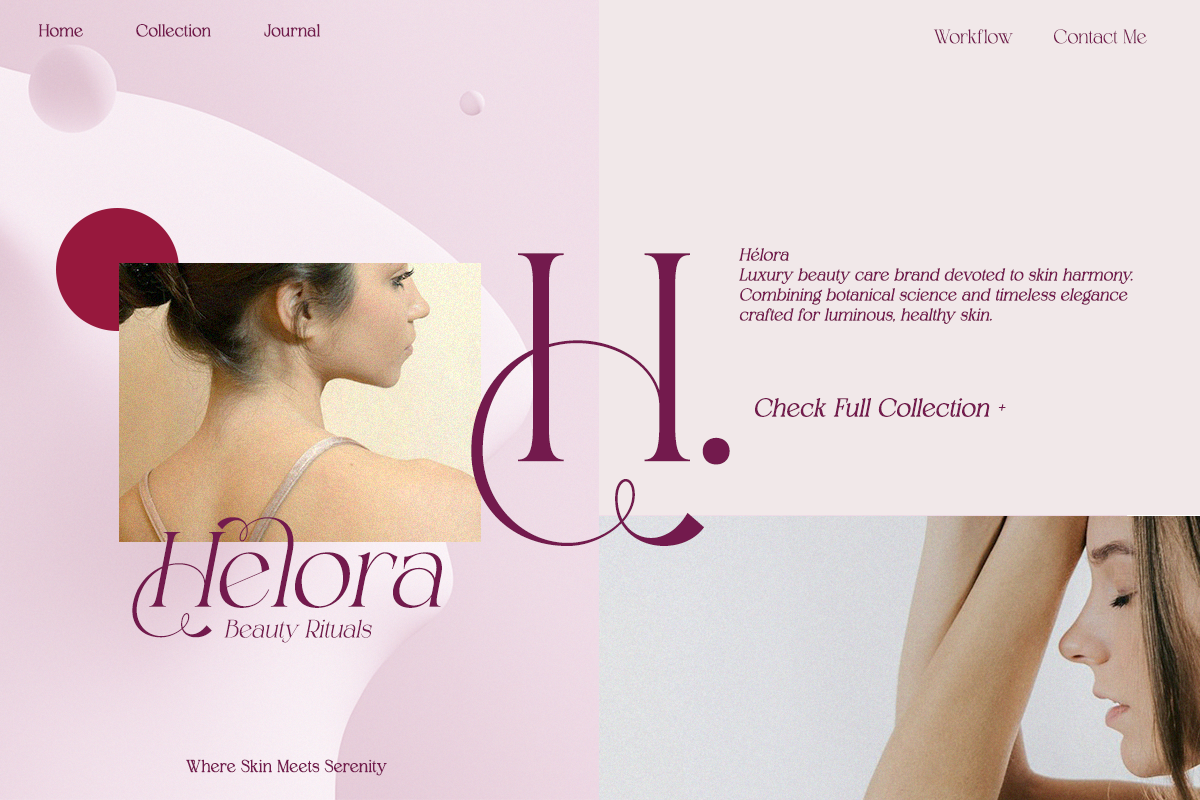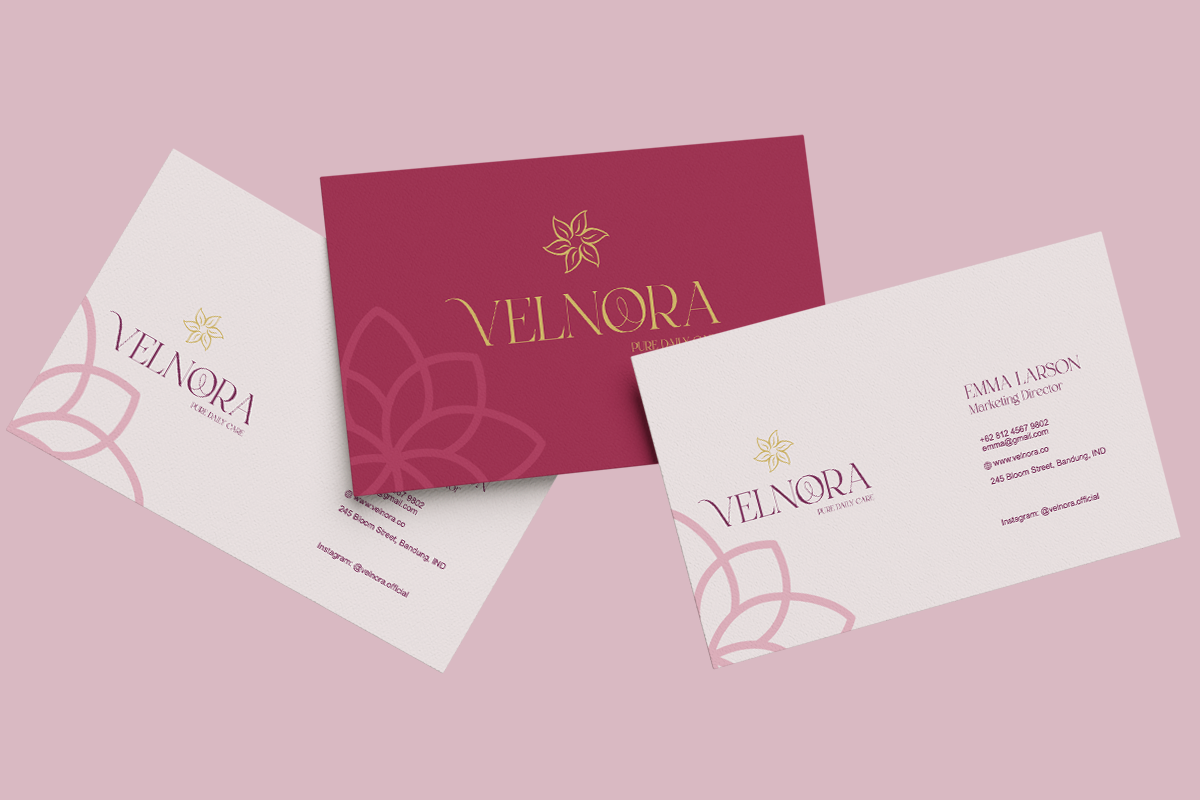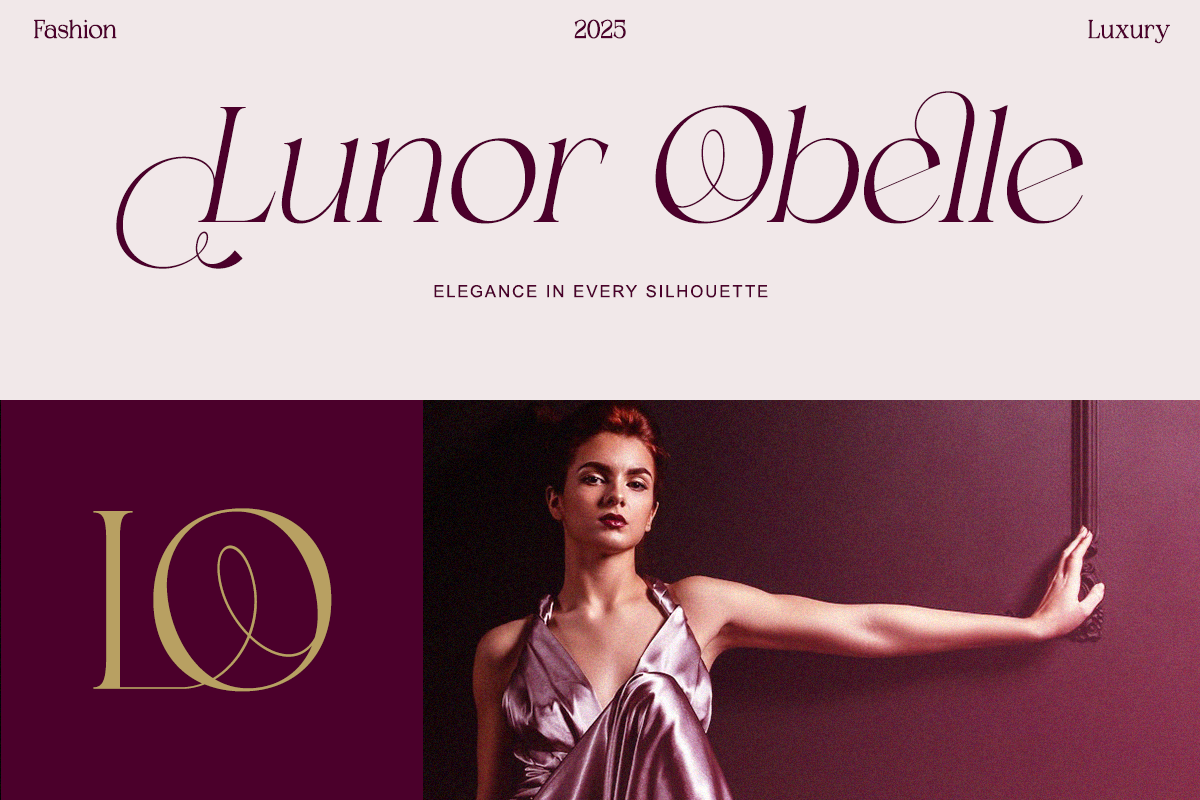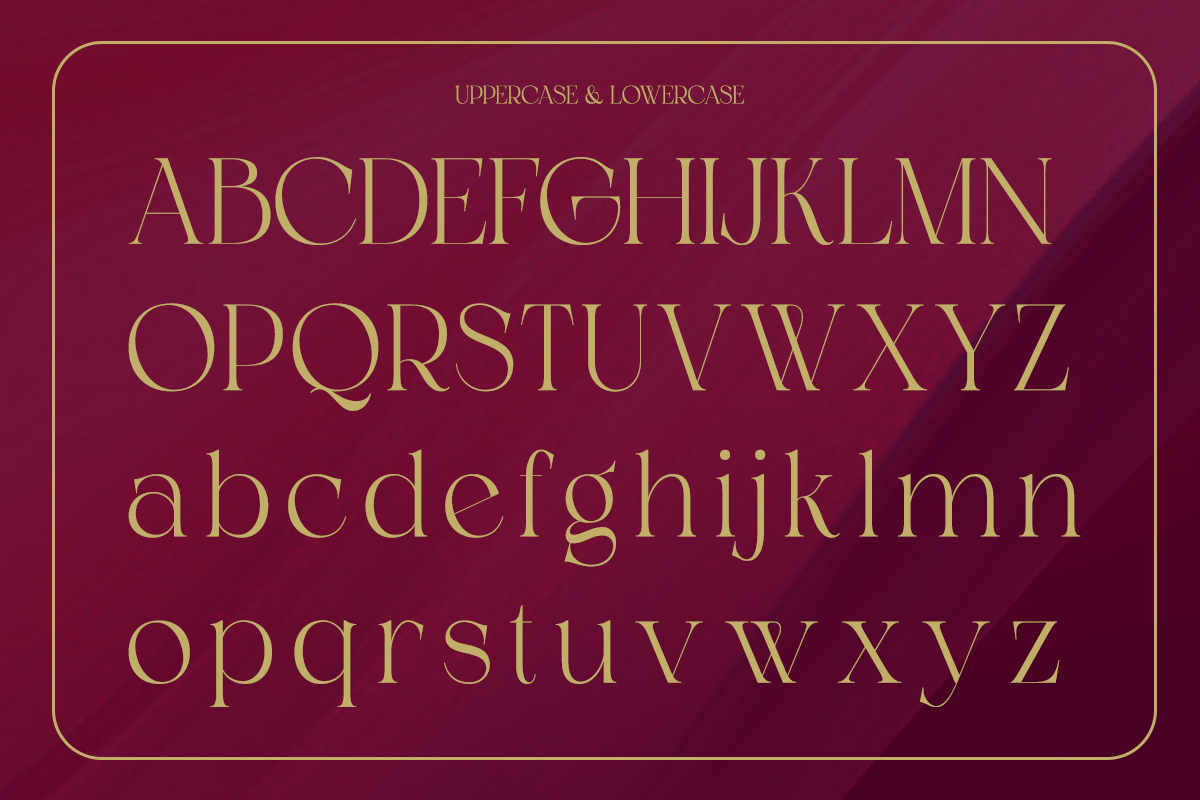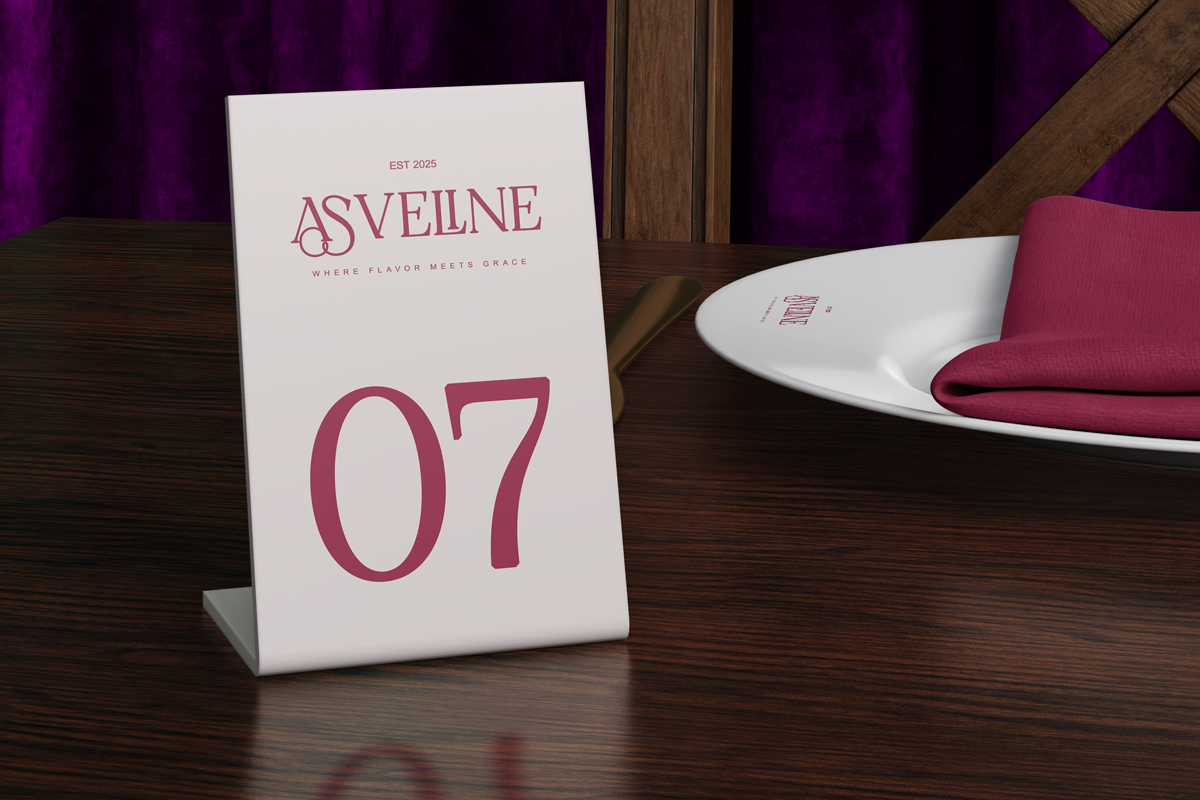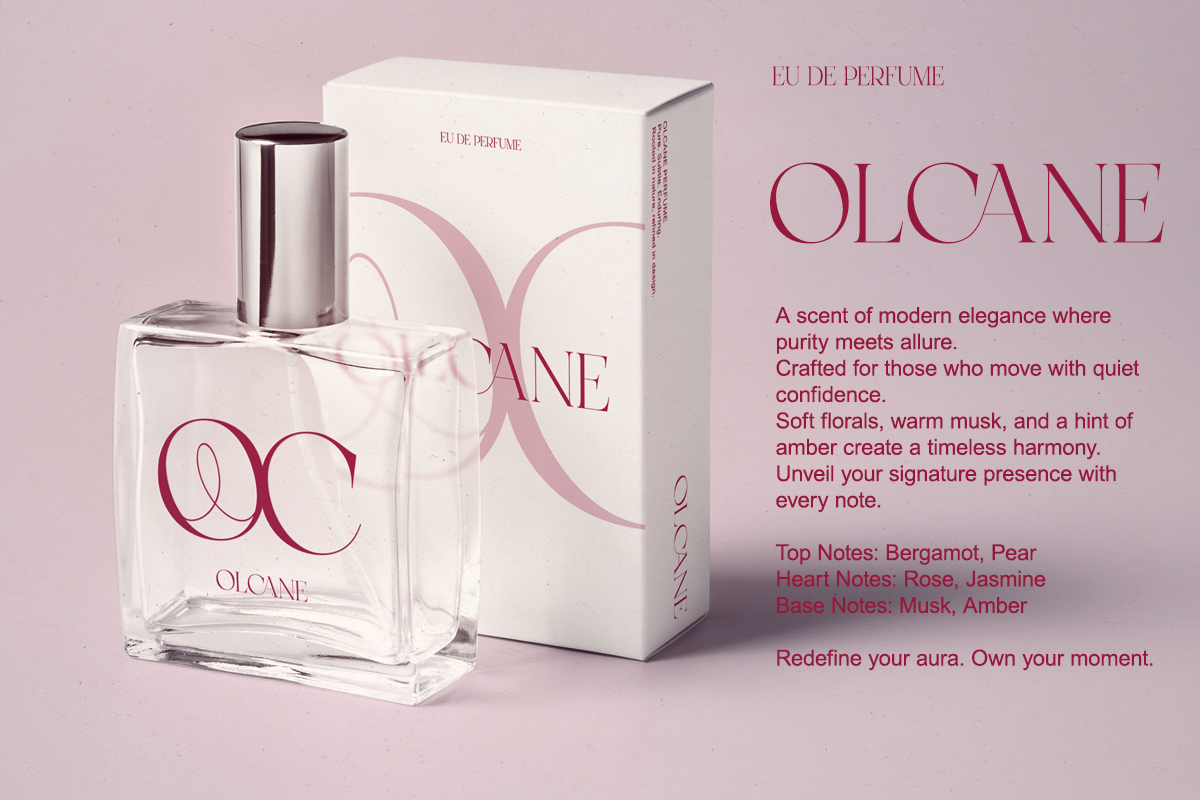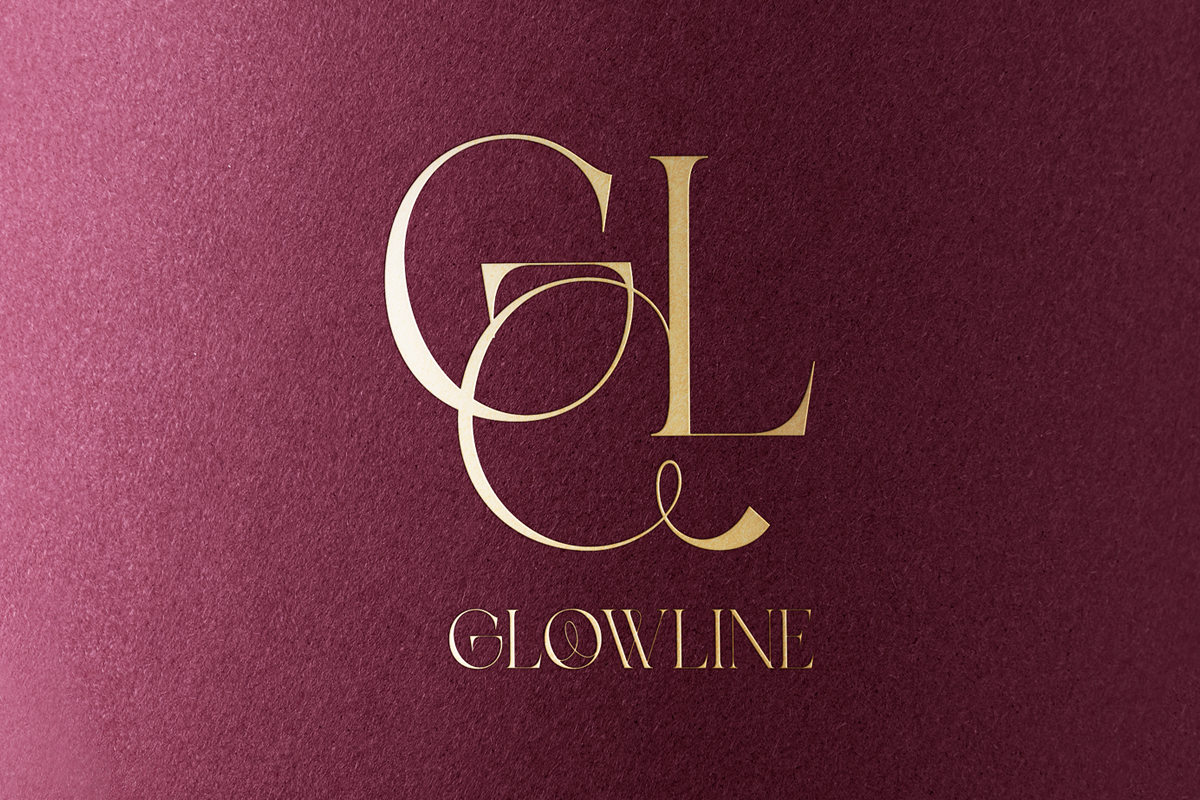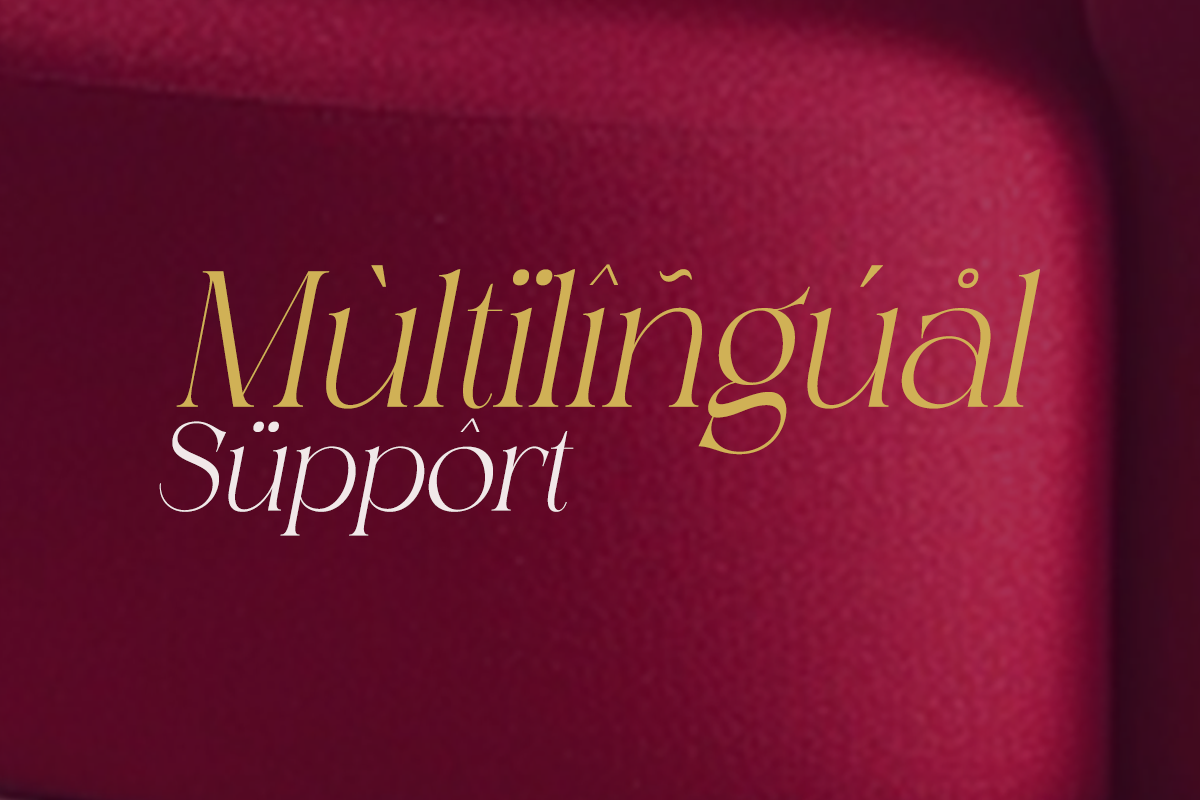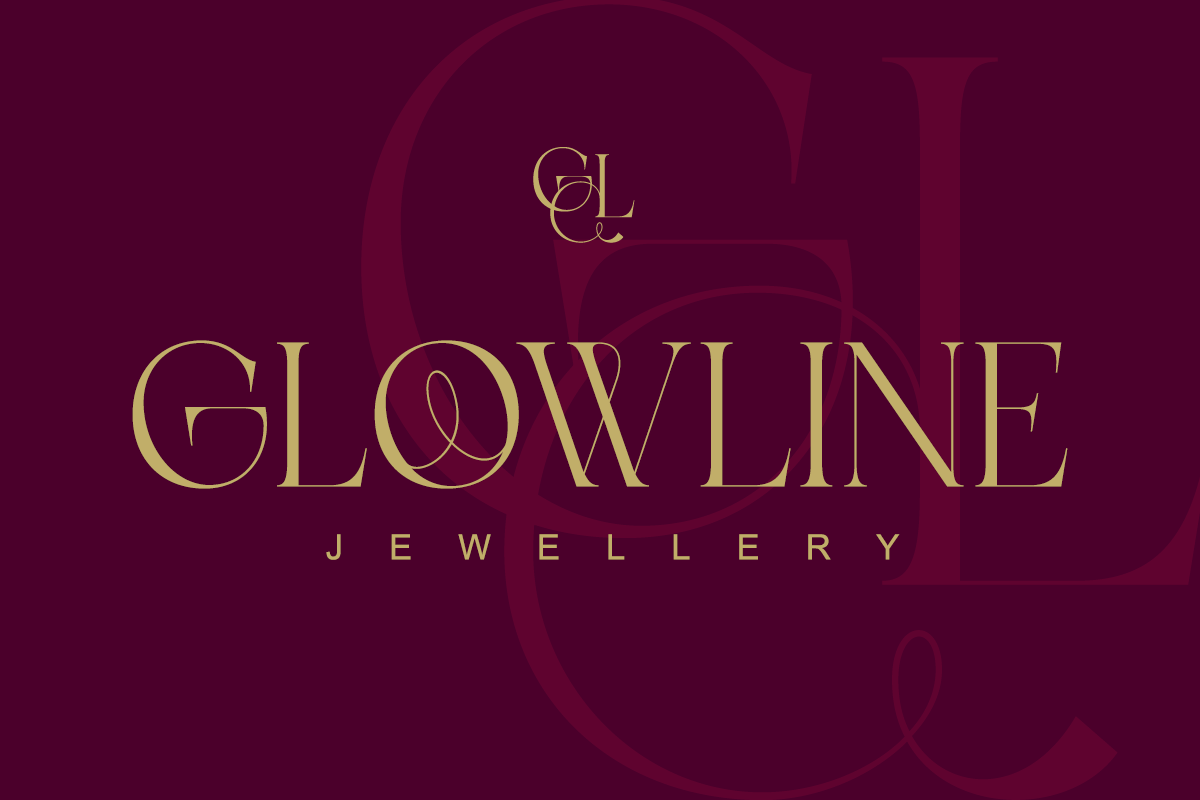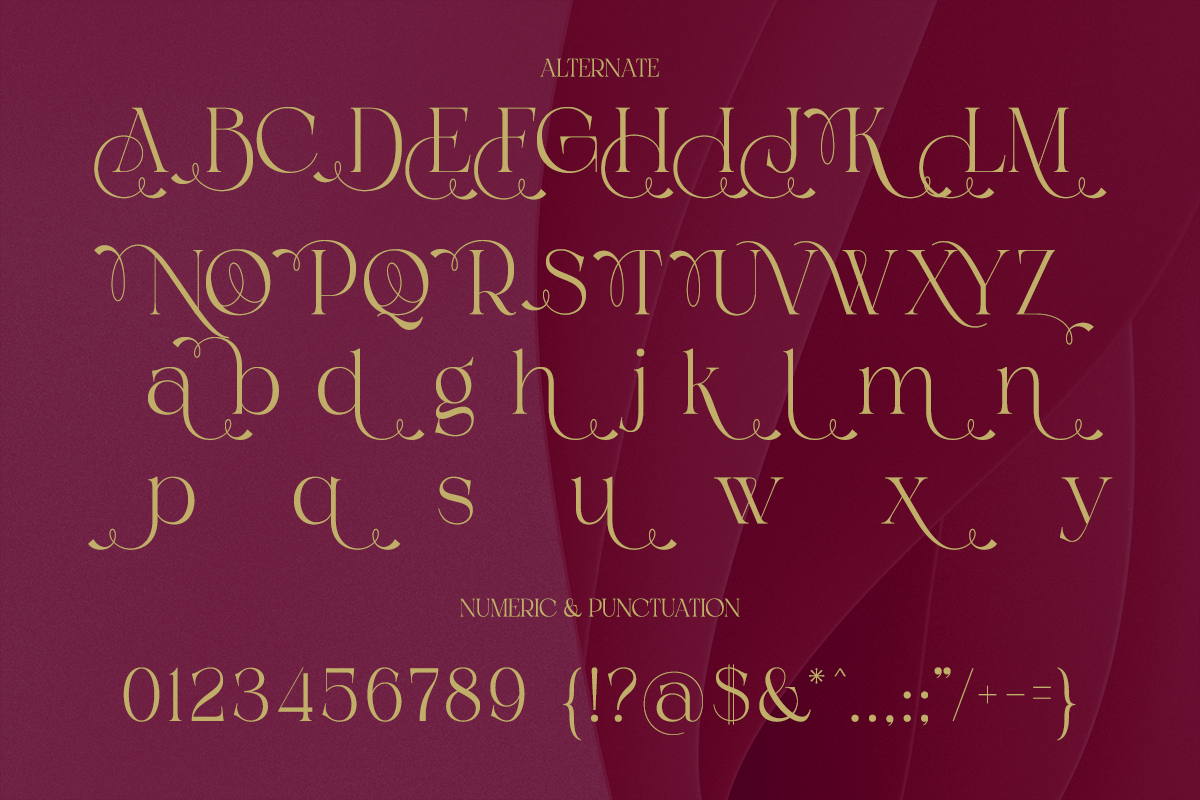
Shealth - Timeless Classic Modern
Introducing Shealth, a serif typeface that blends classic sophistication with modern clarity. Designed for elegance and readability, Shealth delivers a confident and timeless presence across logos, editorials, and premium branding.
Every character is carefully crafted to feel polished, professional, and versatile.
- Regular & Italic
- Full uppercase & lowercase
- Alternates and ligatures
- Classic serif proportions
Perfect For Branding, editorial design, magazines, book covers, luxury packaging, corporate identity, fashion branding, and print layouts.